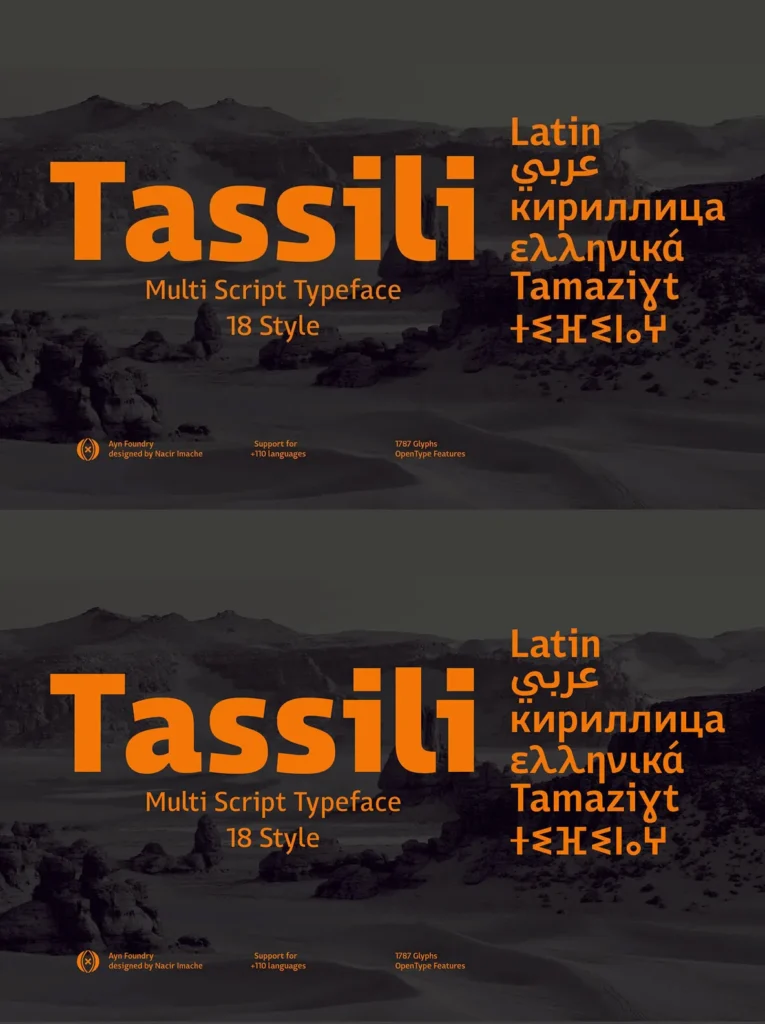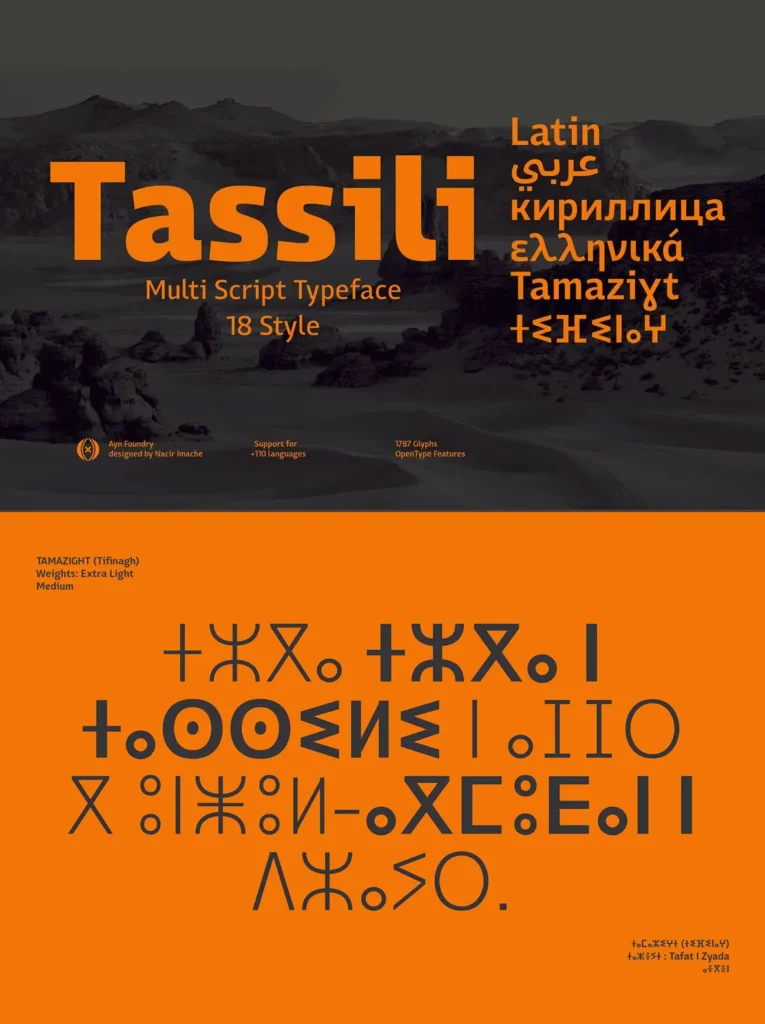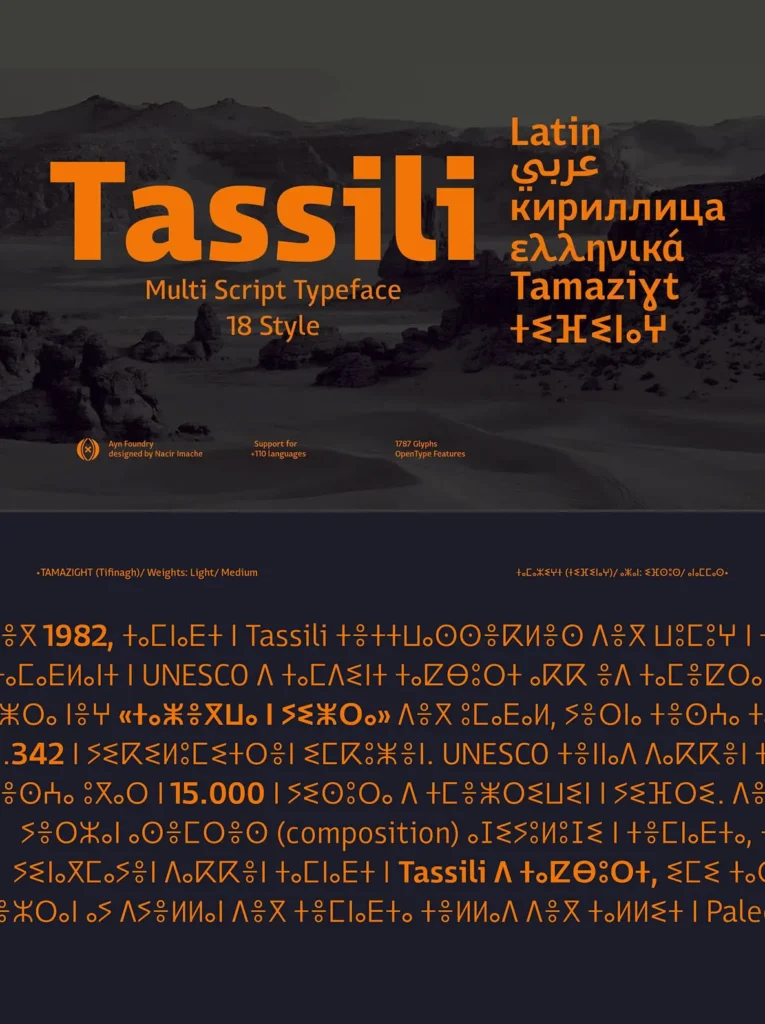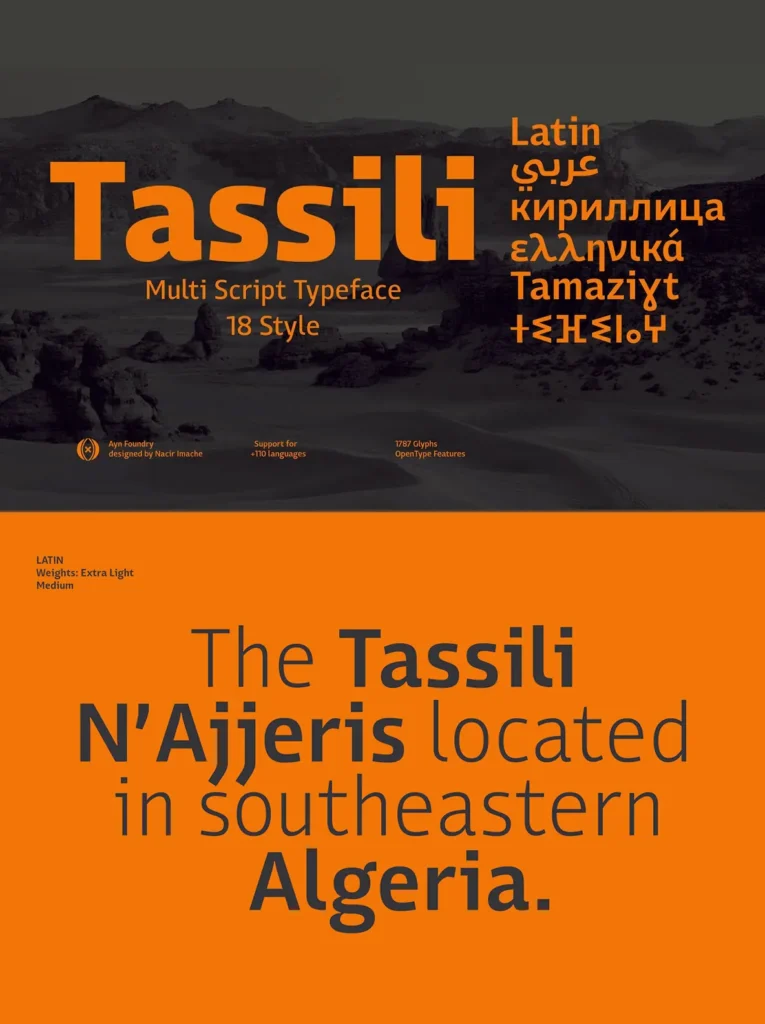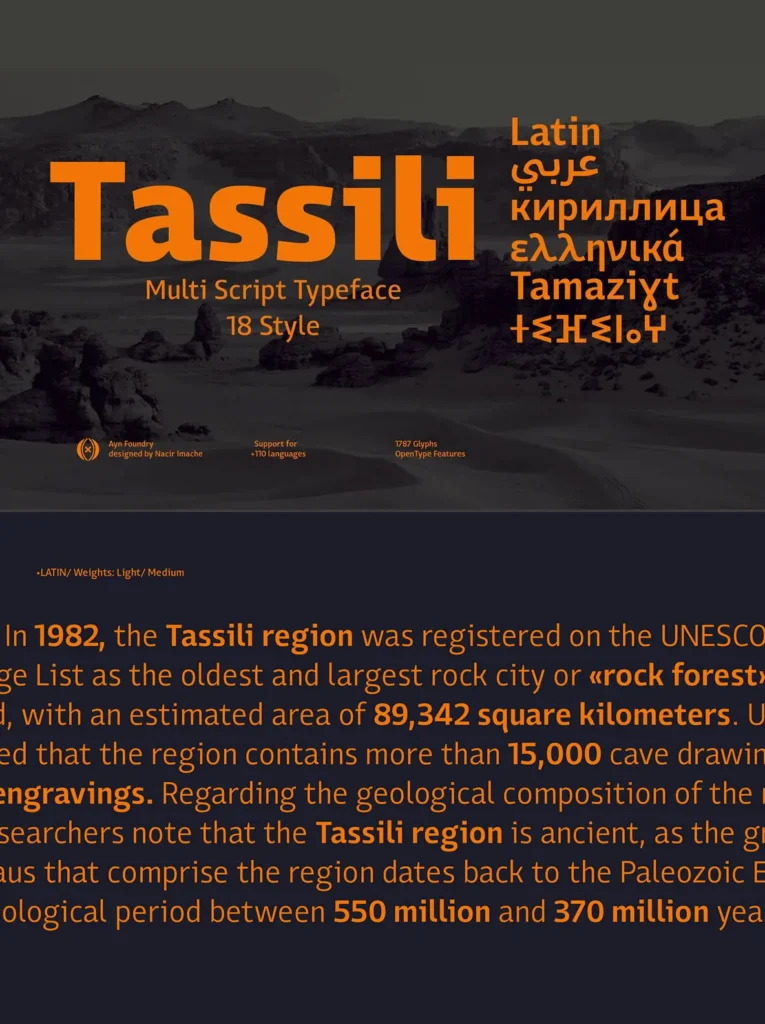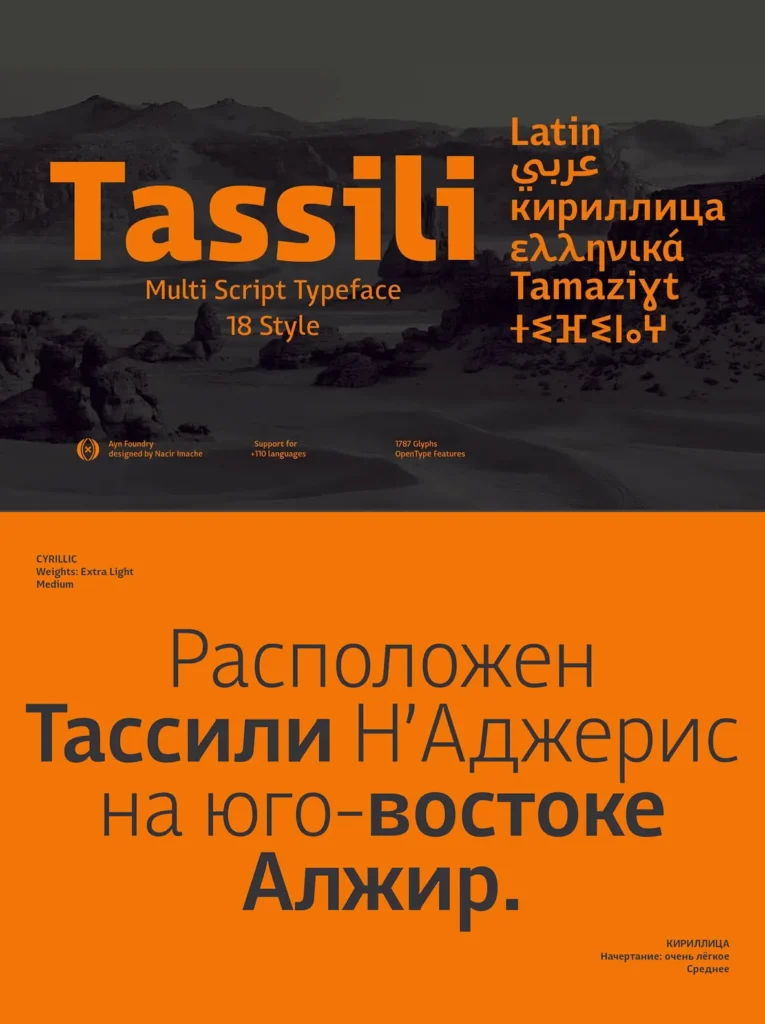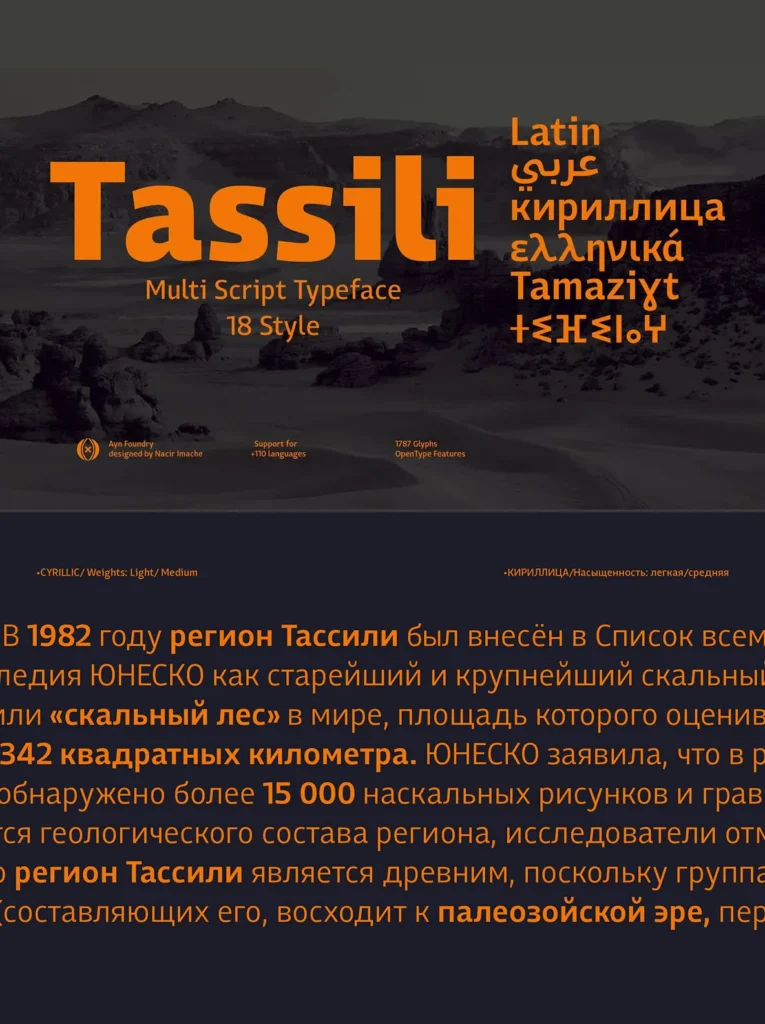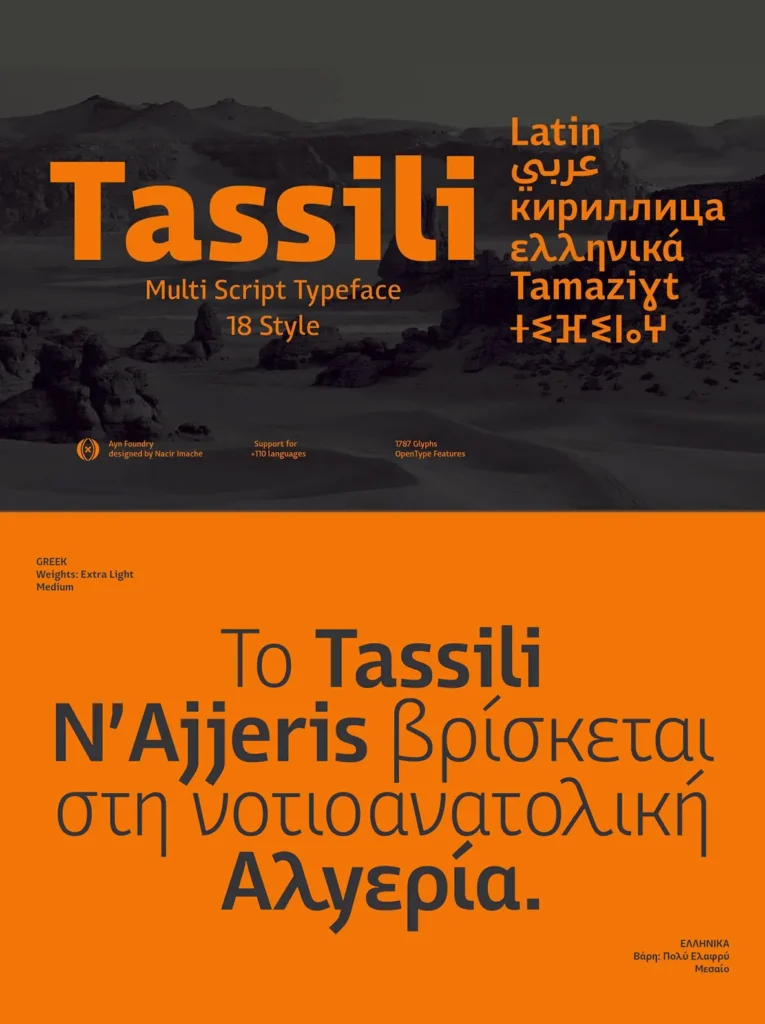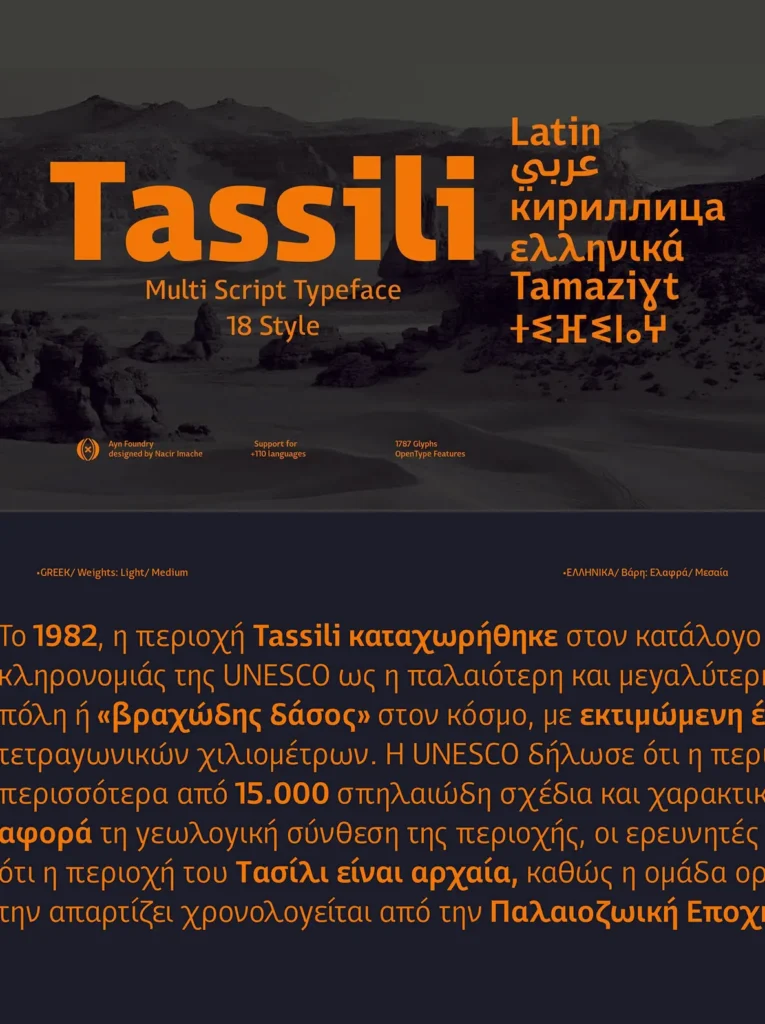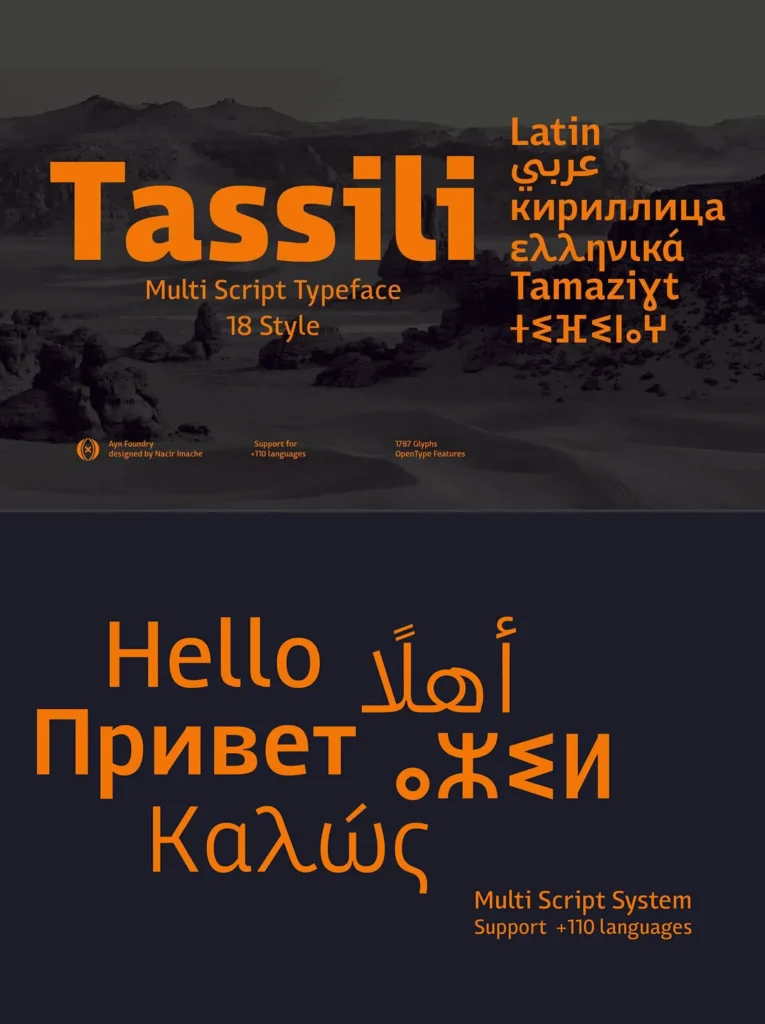
Tassili: A Global Bridge in Typeface Design
Tassili emerges as a versatile, multi-script sans serif typeface forged to honor linguistic variety and bolster global communication. Designed with a broad typographic scope, it adeptly serves languages such as Tamazight (Tifinagh), Arabic, Latin, Greek, and Cyrillic. The typeface seamlessly bridges cultural expression with modern design, enriching typographic libraries and allowing brands to maintain a cohesive visual identity across diverse scripts and regions.
Tassili features a generous x-height and subtly condensed proportions, achieving a refined balance between legibility and spatial efficiency. Its geometric clarity is invigorated by distinctive terminal cuts and sharp angles, endowing each character with a dynamic, contemporary flair. The design philosophy chiefly prioritizes harmony across scripts, showing respect for the unique calligraphic traditions of every writing system while unifying them under a consistent visual language.
Comprehensive Features
Supports 110+ Languages
– Embraces a wide array of writing systems.
Broad Range of Weights
– From Thin to Black, each with matching italics.
OpenType Features
– Includes stylistic alternates, tabular and oldstyle figures, fractions, and extended language support.
Ideal for branding, corporate identity, advertising, signage, wayfinding, and media applications, Tassili enables designers worldwide to communicate with clarity, confidence, and cultural sensitivity.